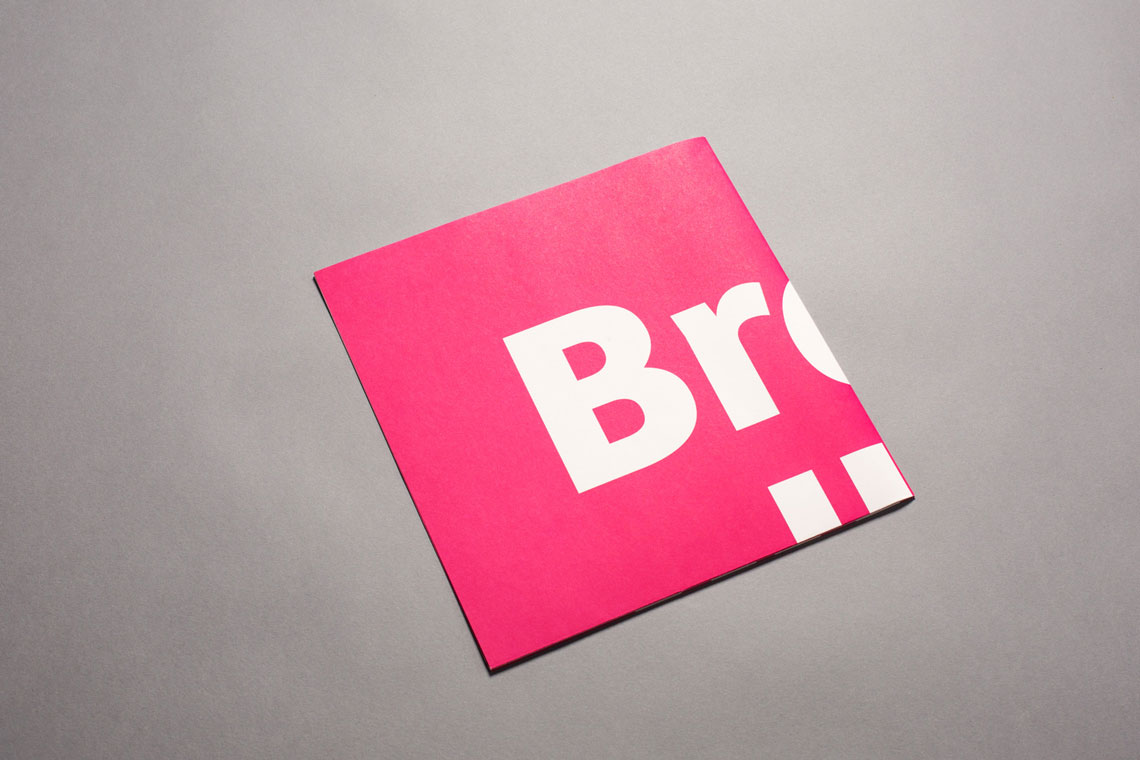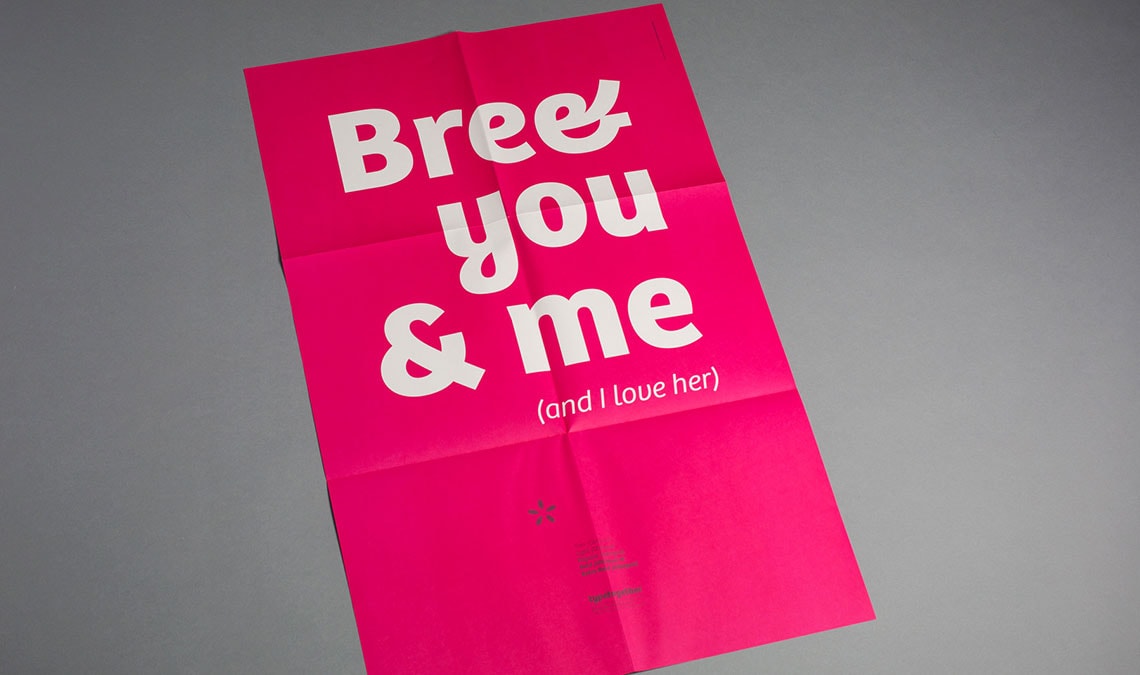
Bree ‘I Love Her’ Poster
Talented brazilian designer Marina Chaccur designed this beautiful poster featuring Bree, the successful award-winning typeface published in 2008 by TypeTogether. Based on TypeTogether’s logotype, Bree is a sleek sans serif that delivers a polished and modern look and feel for branding or headline usage.